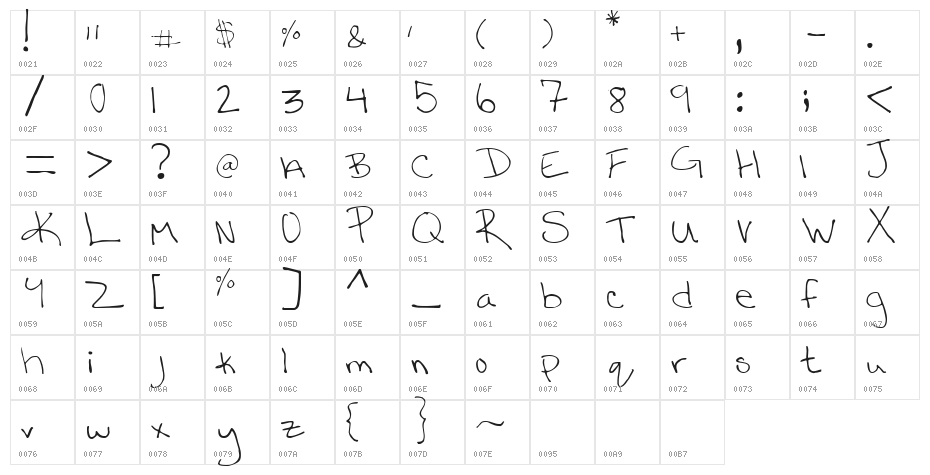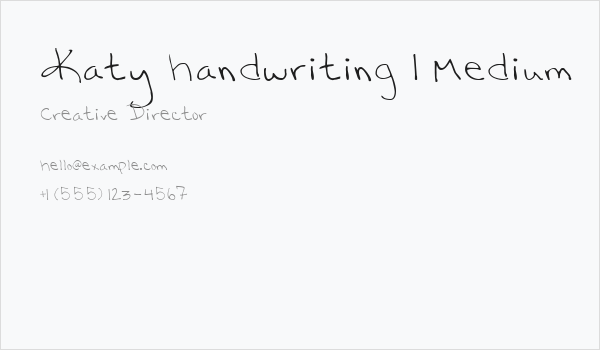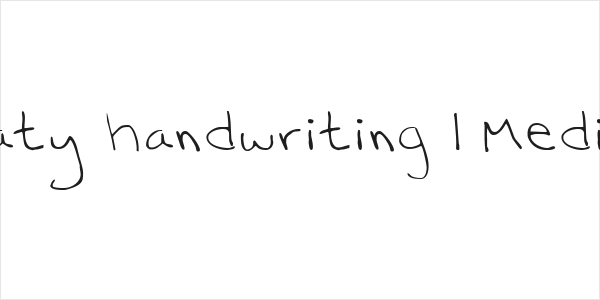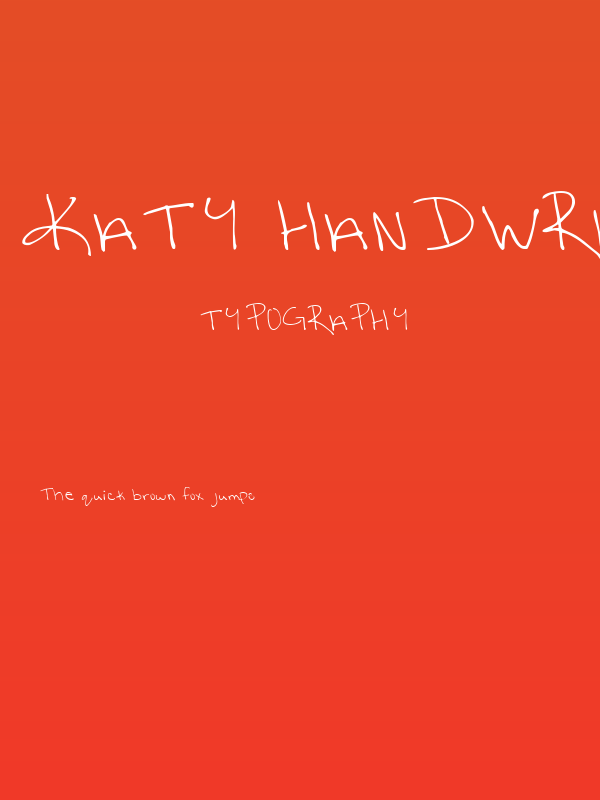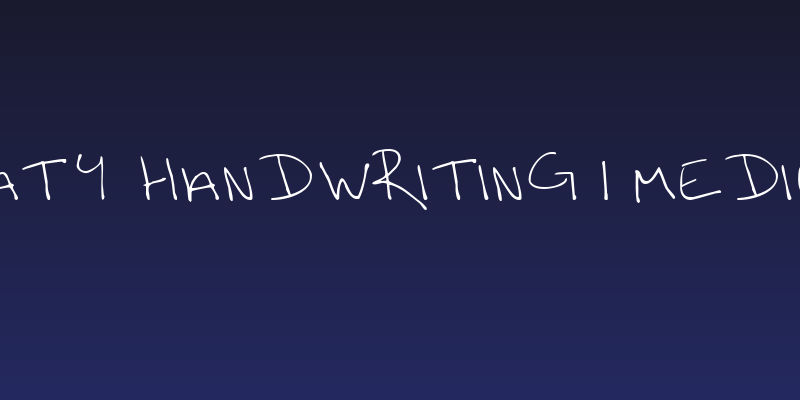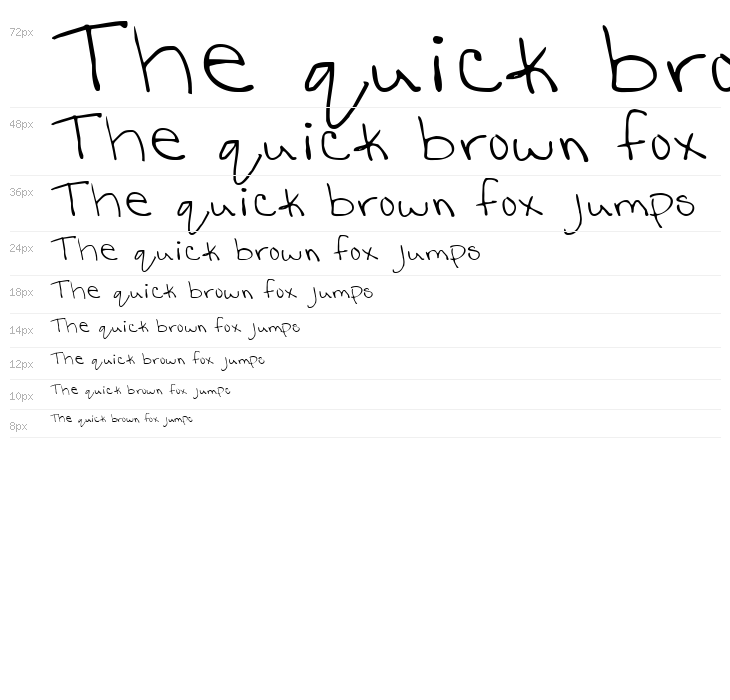
Katy handwriting 1 Medium Font
Katy handwriting 1 Medium Description
This font exhibits a casual and playful handwritten style, characterized by its loose and informal strokes. The letters are slightly uneven, adding a personal and authentic touch that mimics natural handwriting. The uppercase and lowercase letters maintain a consistent flow, with rounded edges and a slight slant that enhances its relaxed appearance. The numerals and special characters follow the same informal style, making them blend seamlessly with the alphabet. This font is ideal for projects that require a personal, friendly, and approachable feel.
| Use Case | Headlines, Informal text, Personal notes |
| Proposed Projects | Ideal for personal notes, invitations, greeting cards, and informal branding projects. |